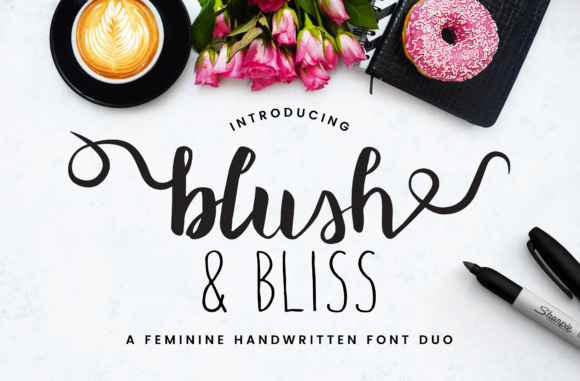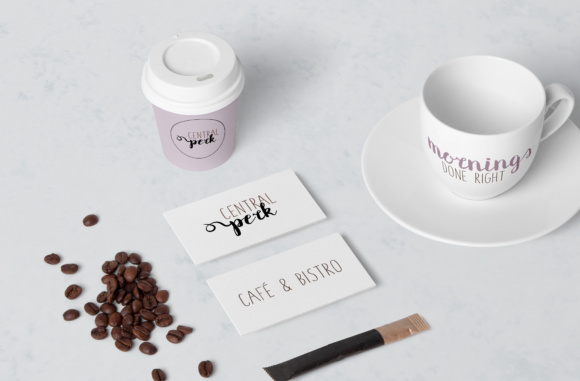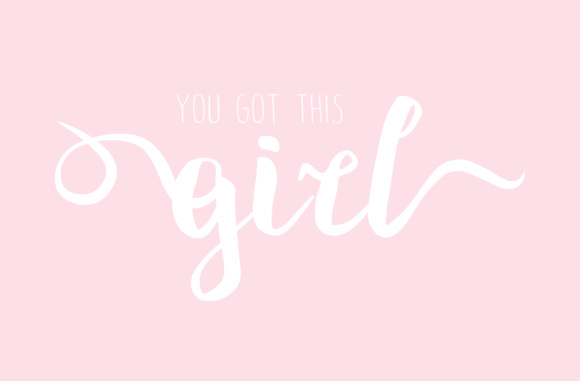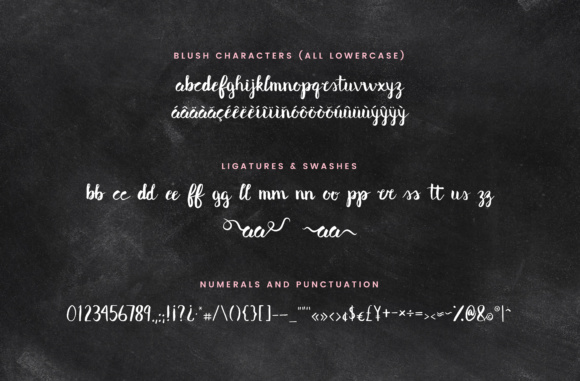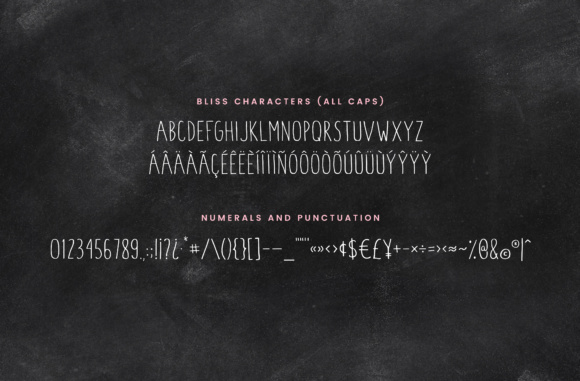
Blush & Bliss Font
About Blush & Bliss Font
Blush & Bliss is a feminine handwritten font duo for all of your graphic design needs! Featuring a playful brush script, and a quirky all caps sans serif, this duo can add style and joy to any of your designs.